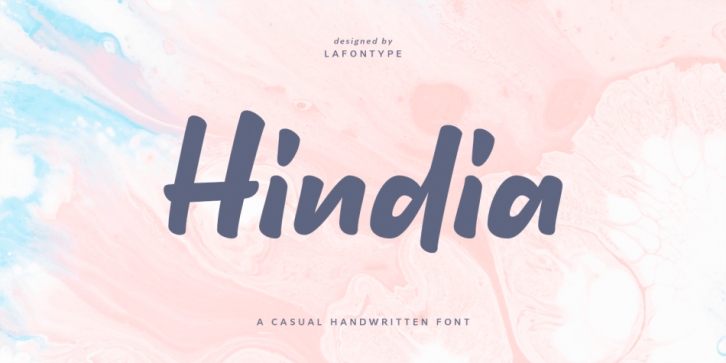
Designed by Anugrah Pasau, Hindia is a brush display and hand drawn font published by Lafontype.
Hindia is a casual handwritten font with a pleasant shape and taste on every glyph. Hindia also supports multiple languages so this font is suitable for any design such as branding, fashion, print templates, quotes, wedding and more.